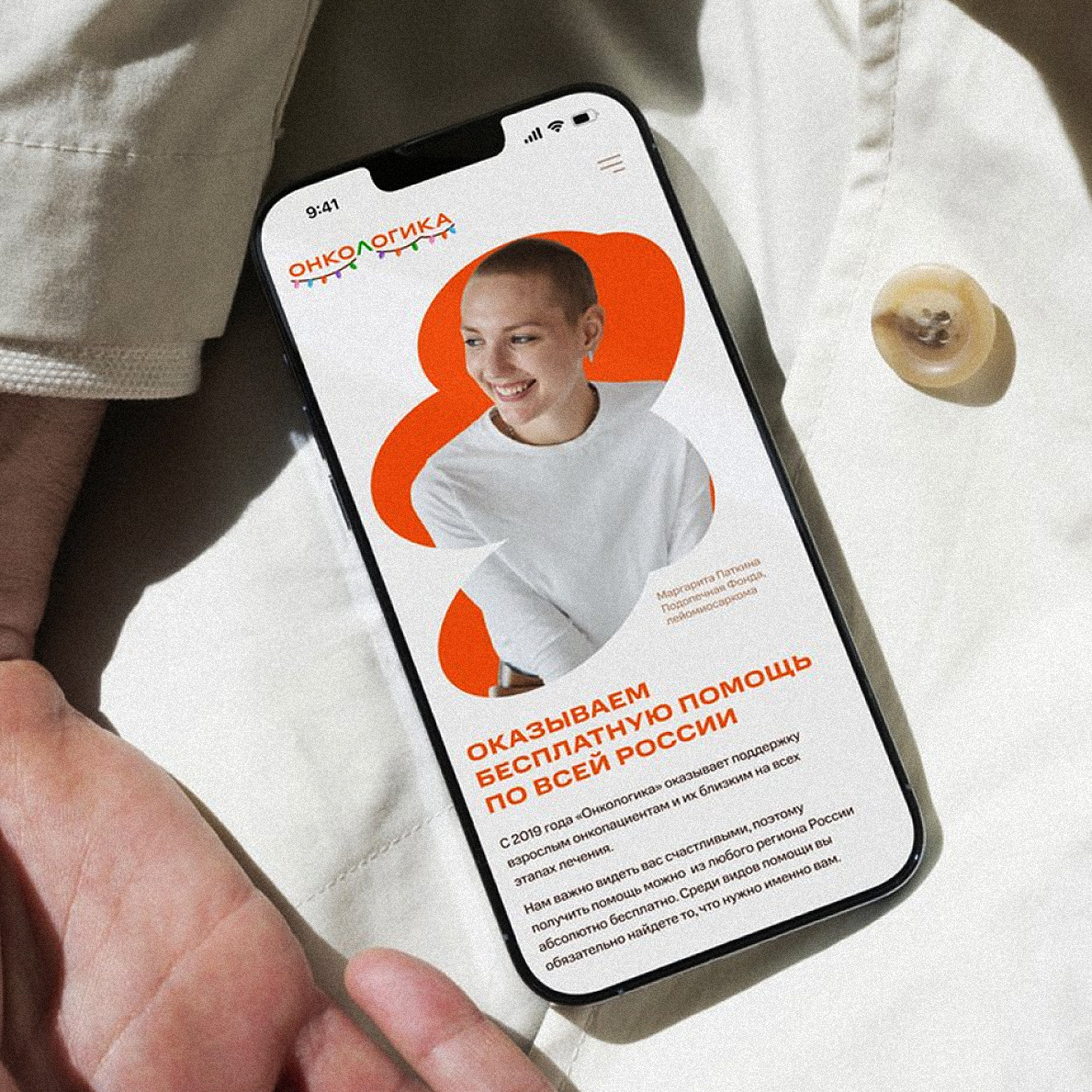
Oncologica is a charity helping adult cancer patients and their caregivers. It supports adult patients diagnosed with any type of cancer at any stage throughout Russia. In the winter of 2025, HSE students Yulia Sabutskaya, Ivan Kelmenchuk, and Muhammed Bashik, together with the Oncologica team, updated the foundation’s landing page and identity. Normalidad by CSTM Fonts is in charge of the project’s typography.
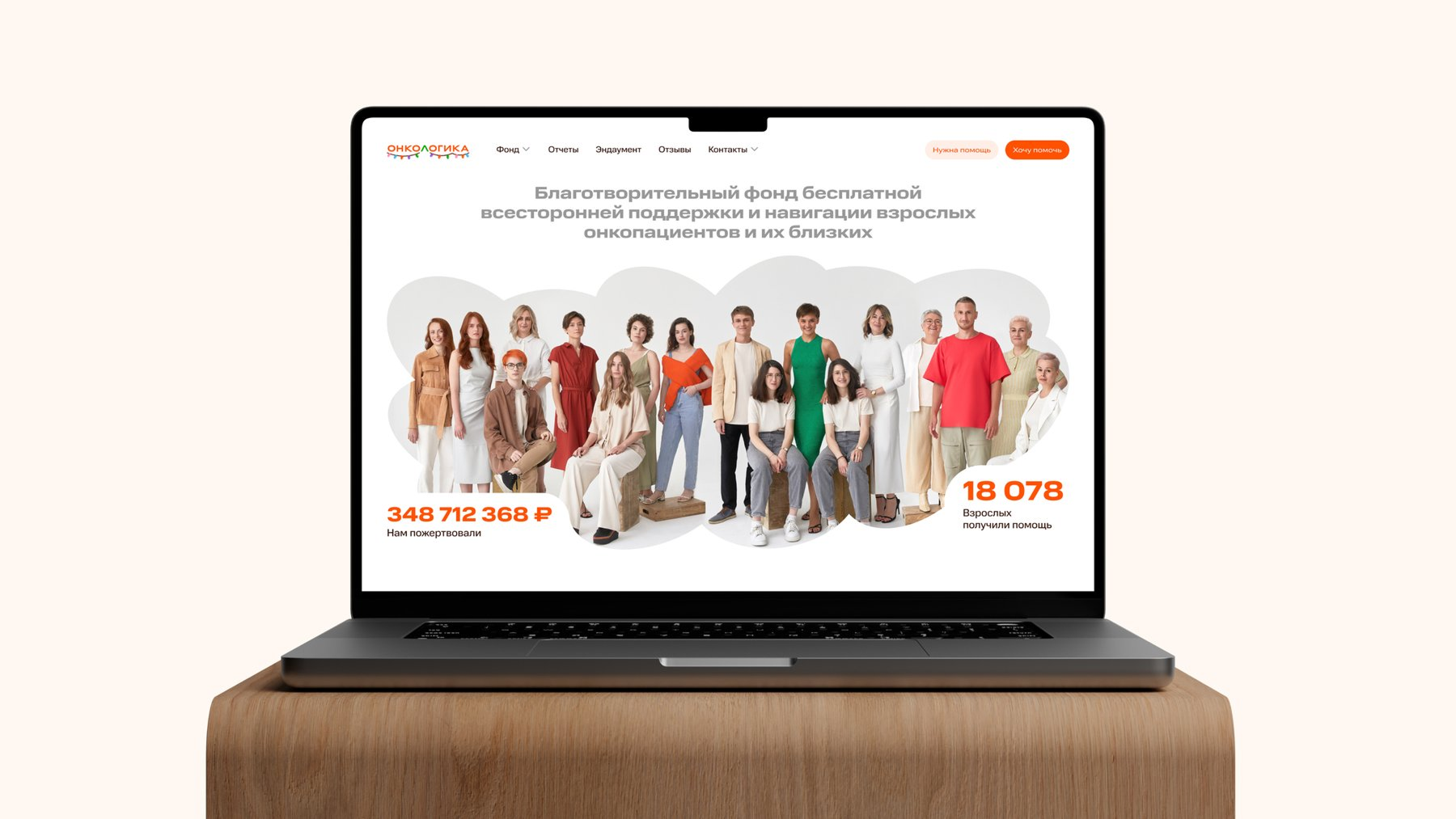
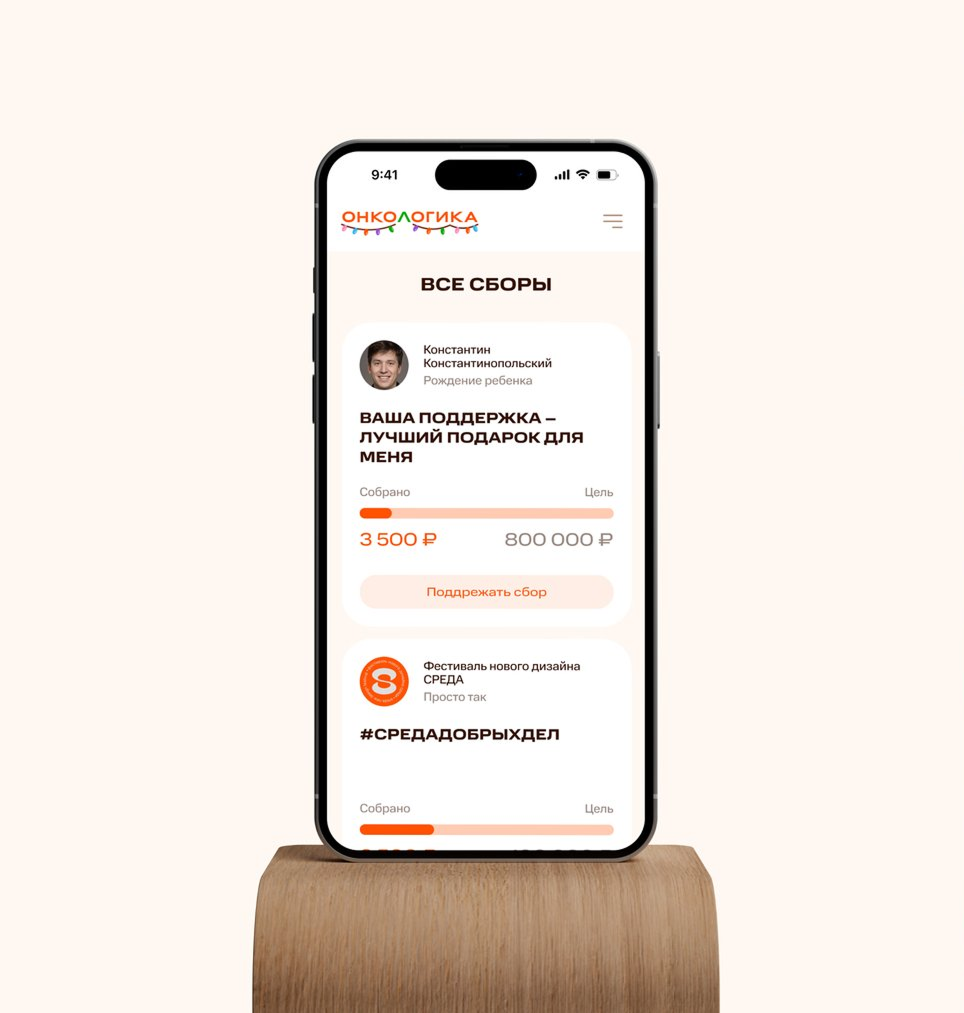
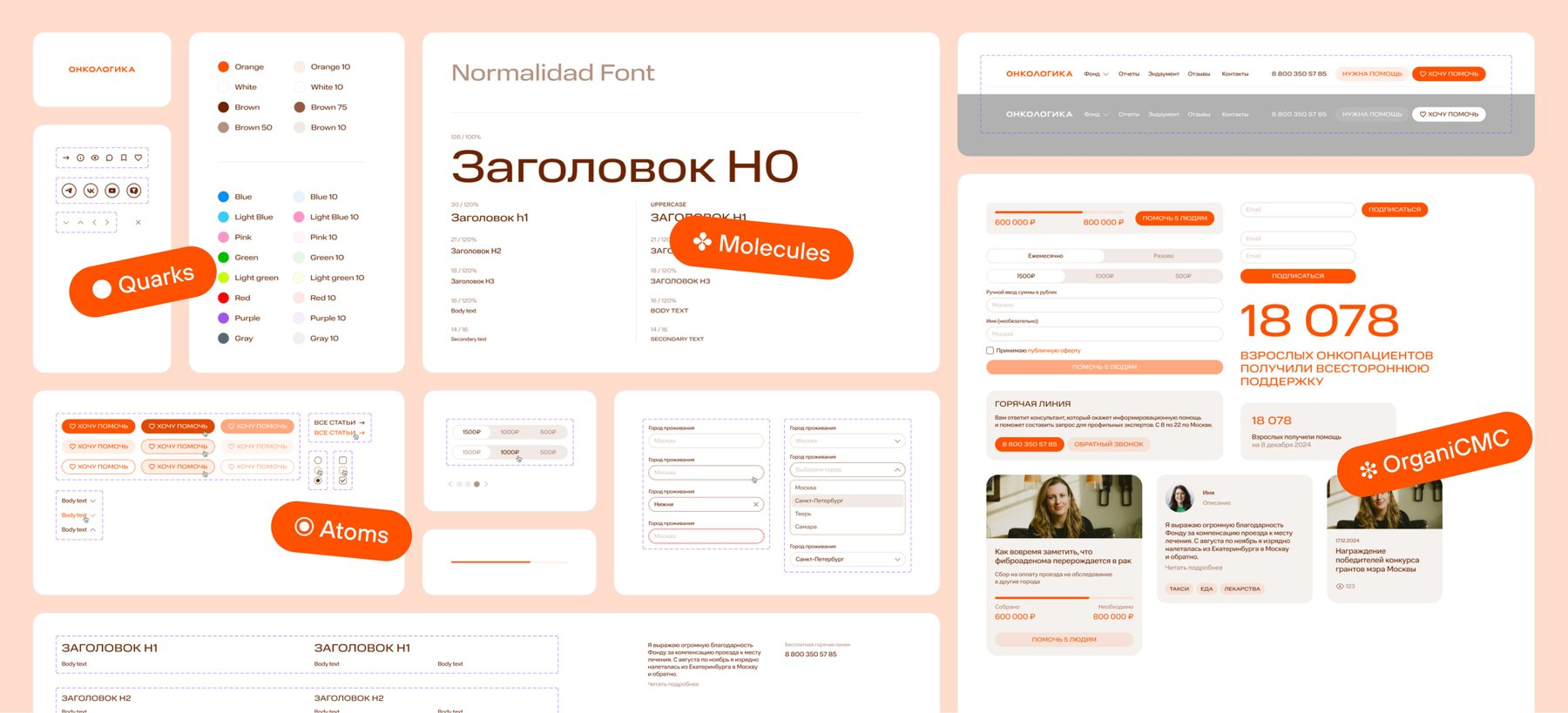
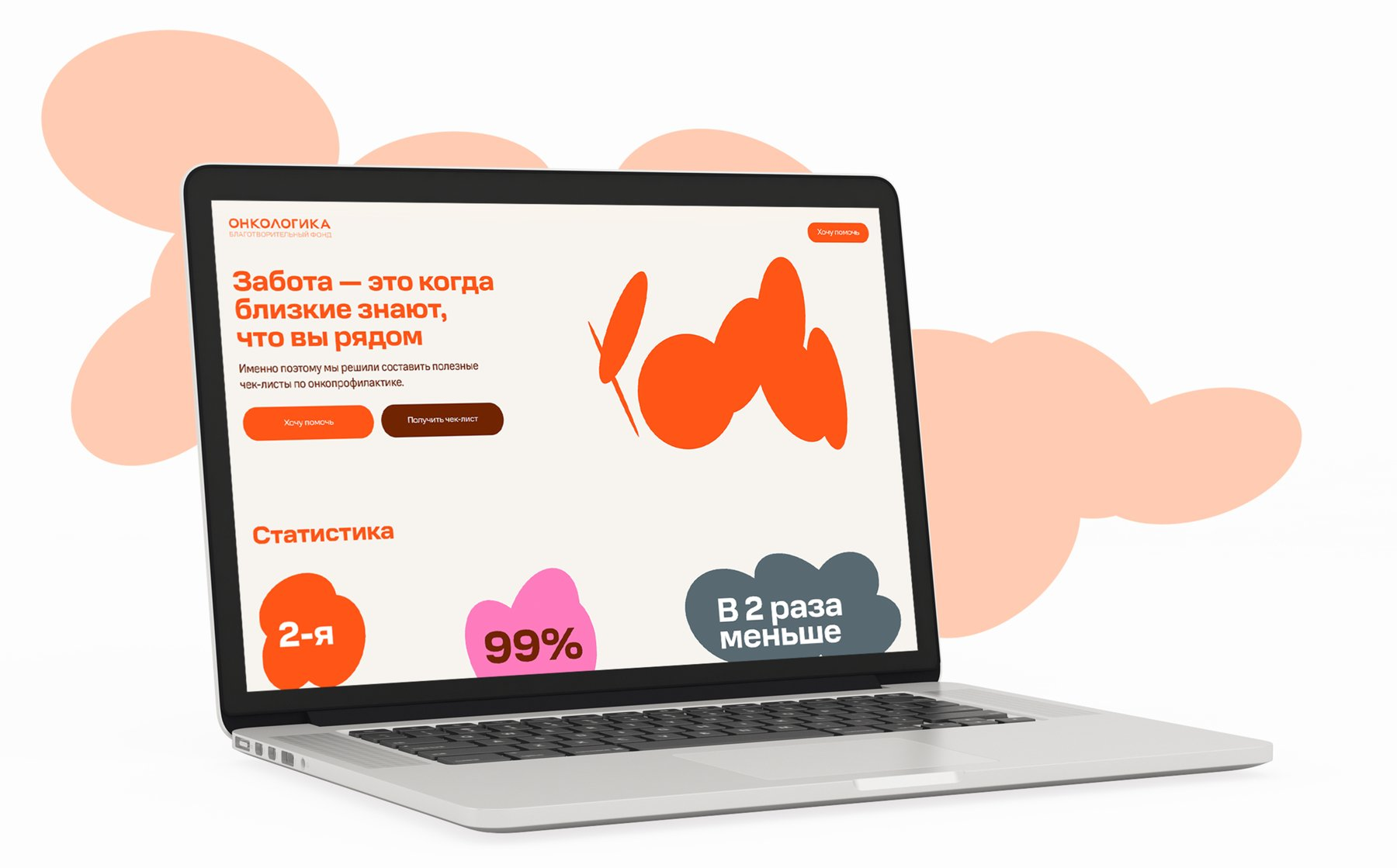
Normalidad is a mechanical semi-closed sans serif that comes in an impressive number of styles. An extensive palette of widths (from Compact to UltraExtended) and weights (from Thin to Black) turns it into a convenient, versatile tool. Since the typeface is available as both display type and quieter options, well-suited for service design purposes, the typeface can cater to a wide variety of needs.